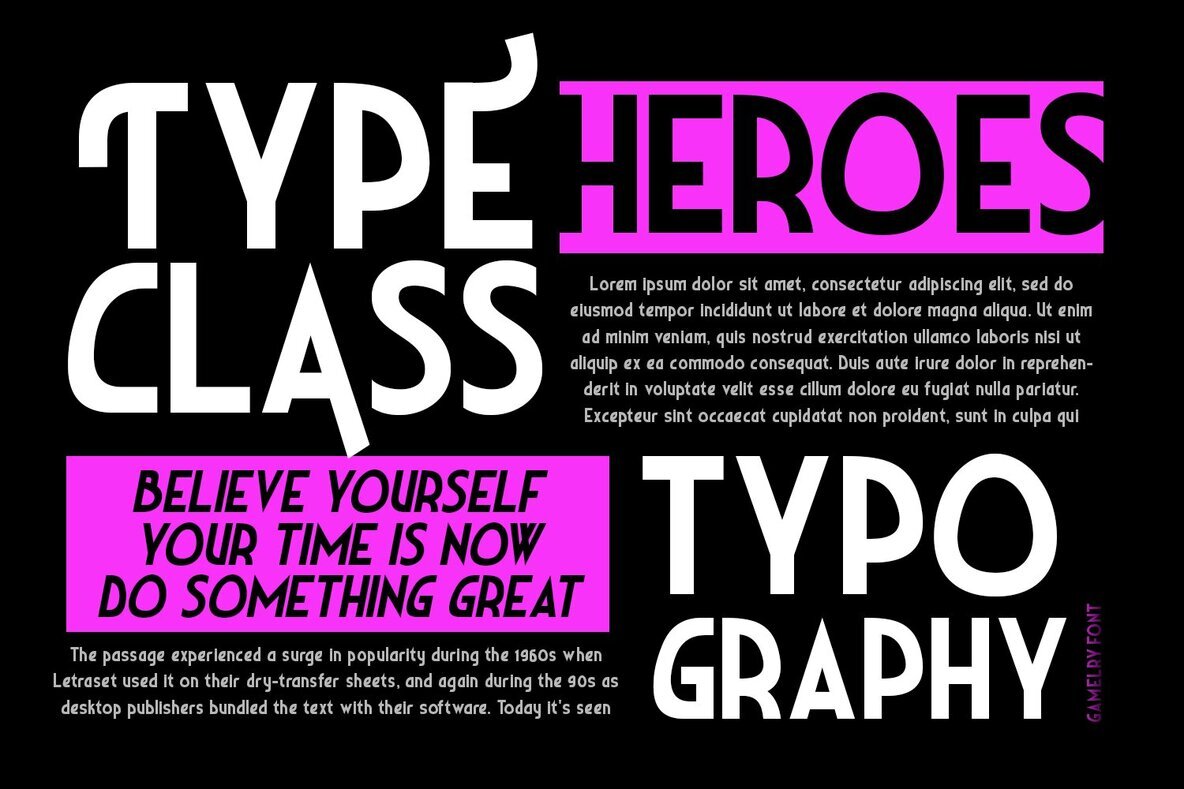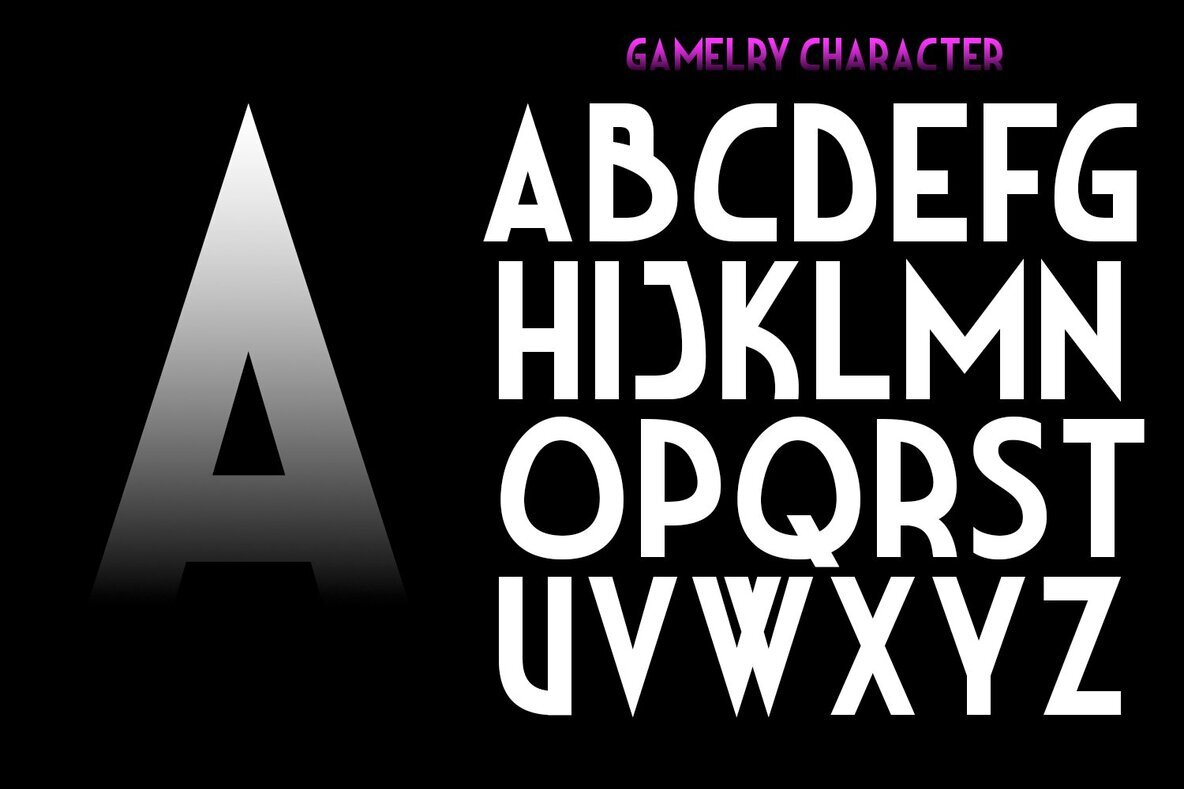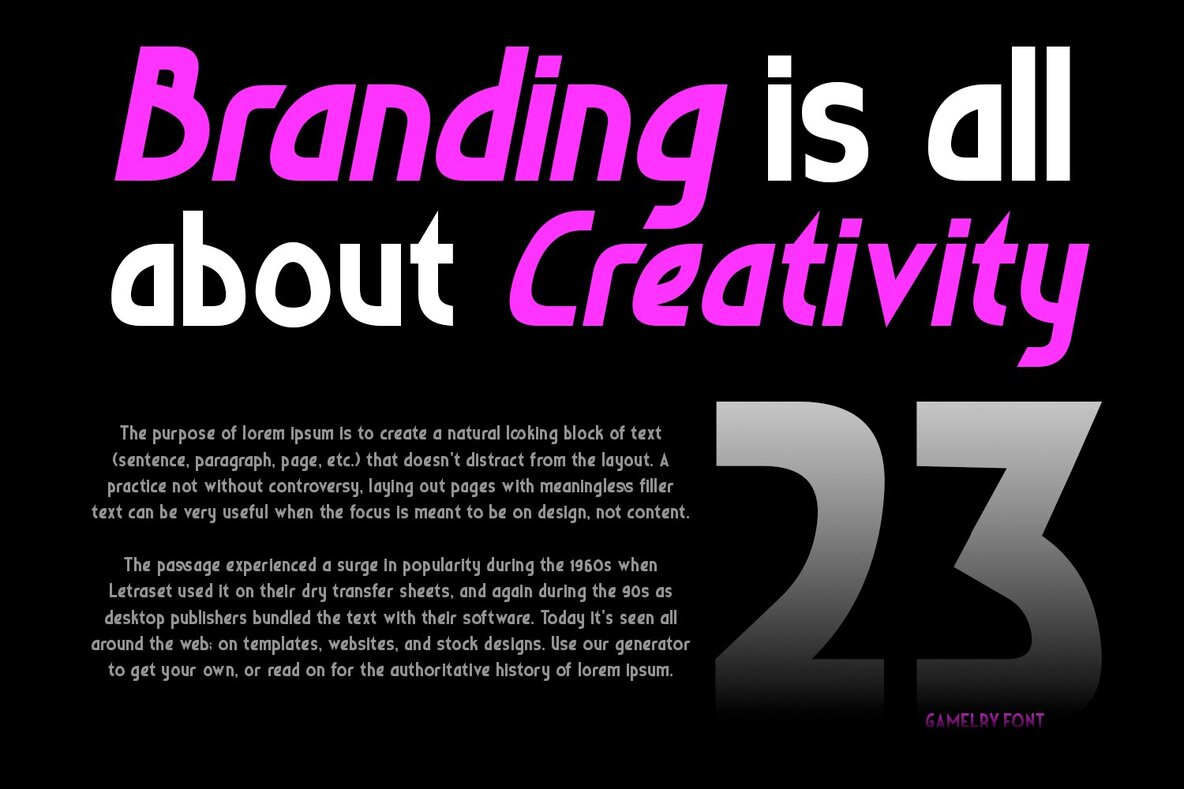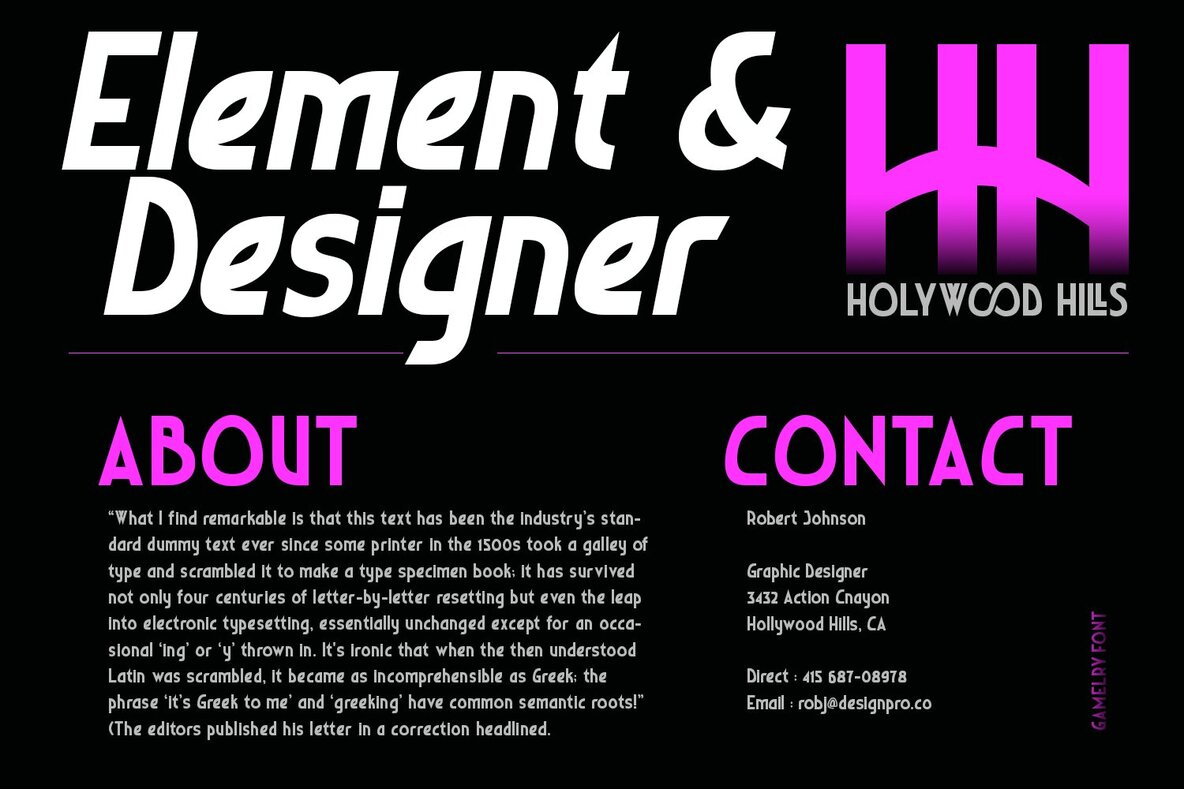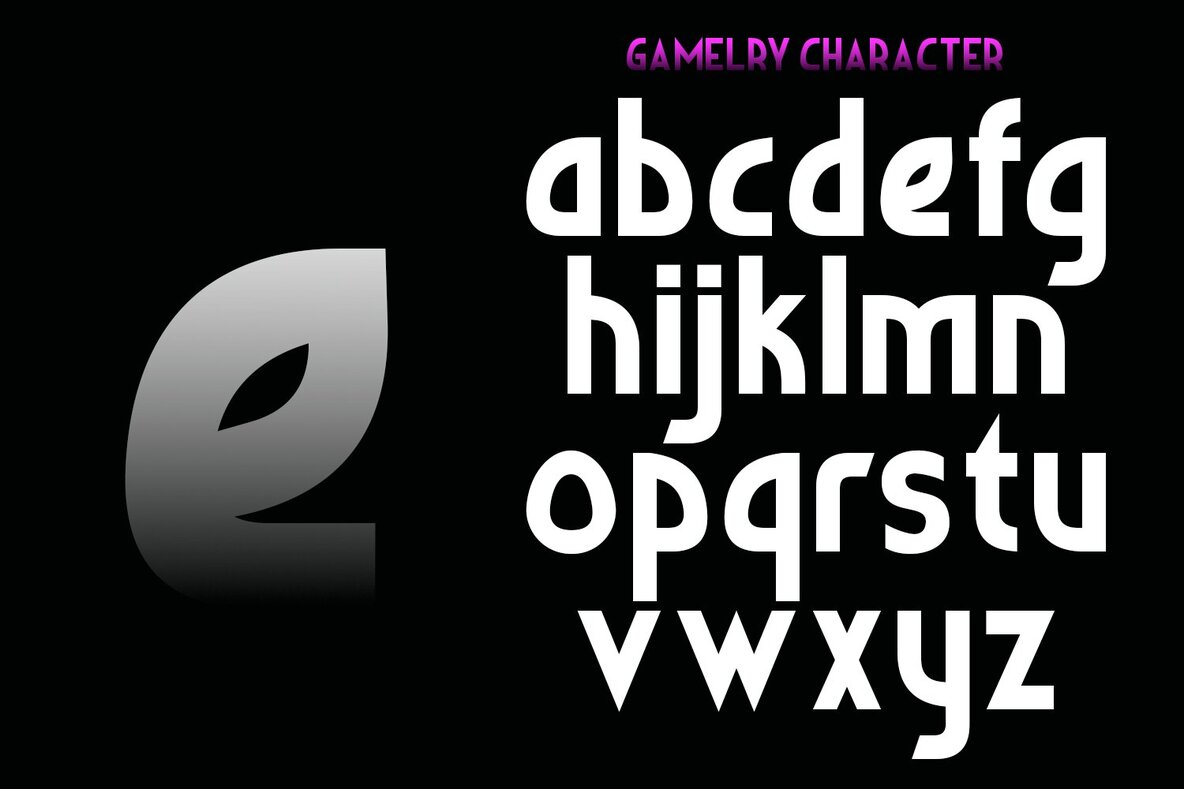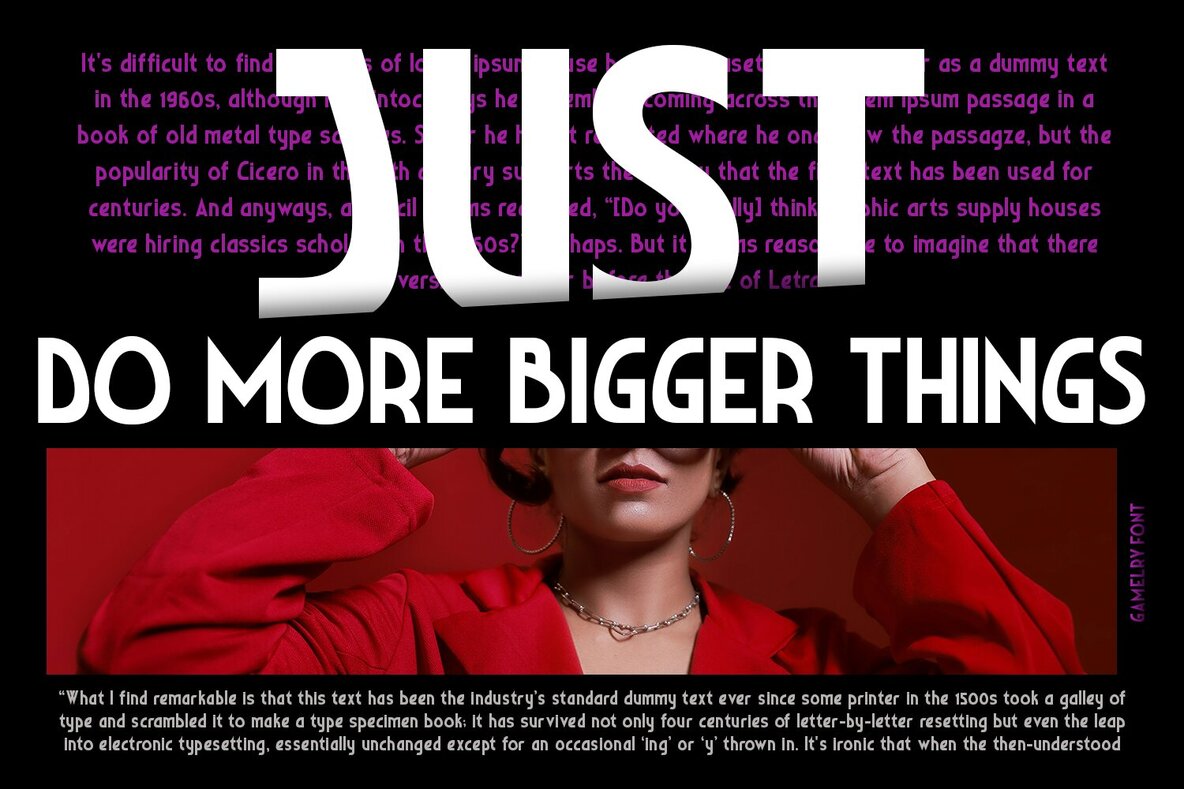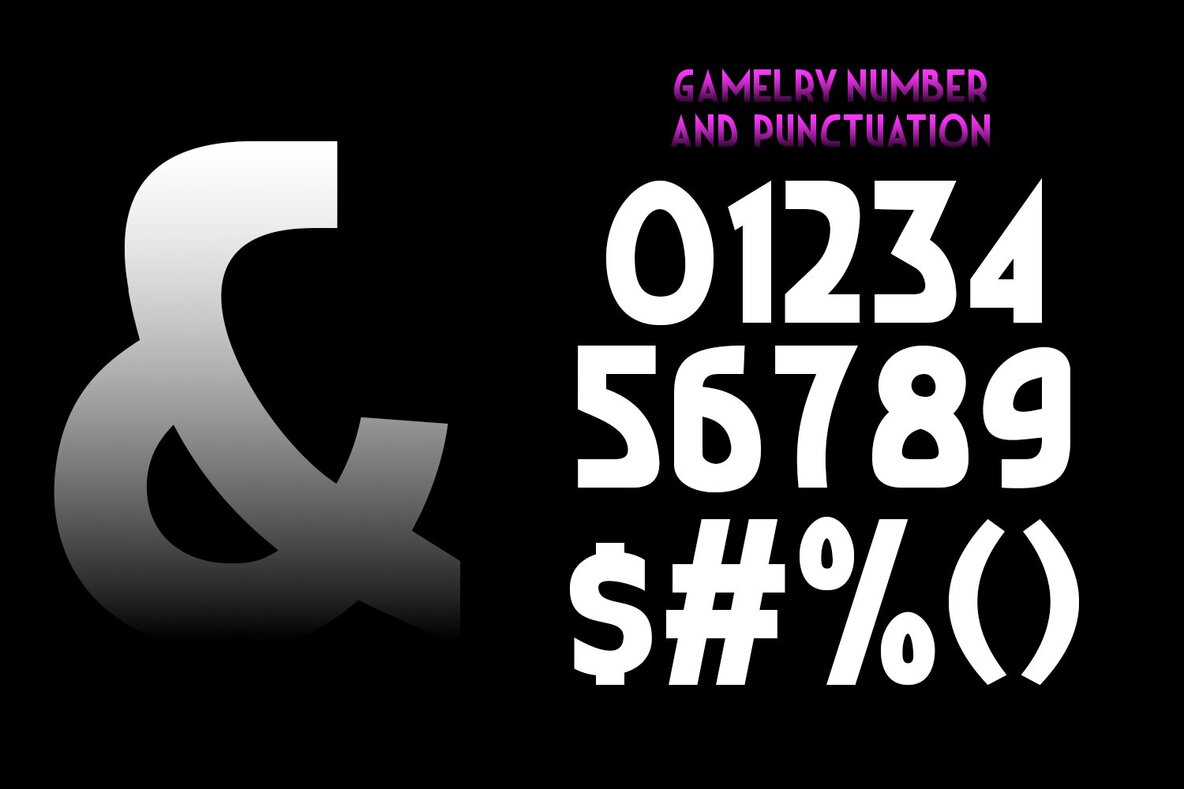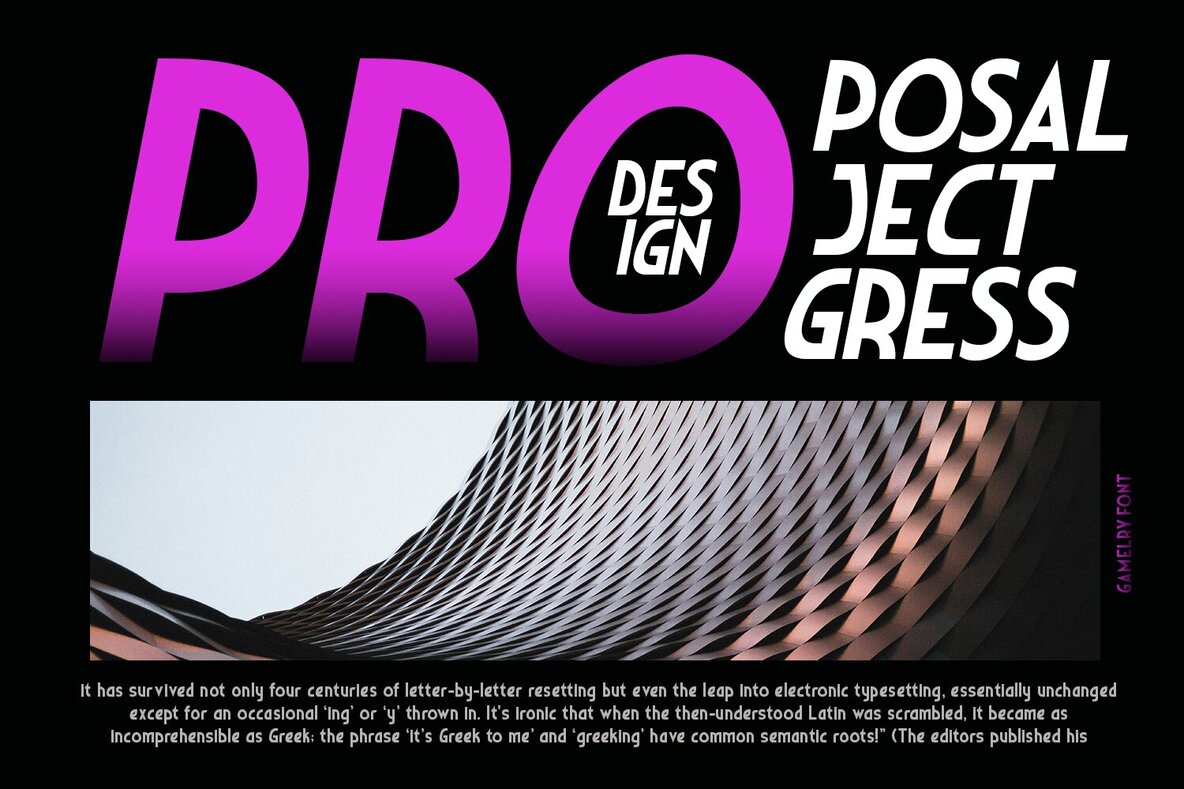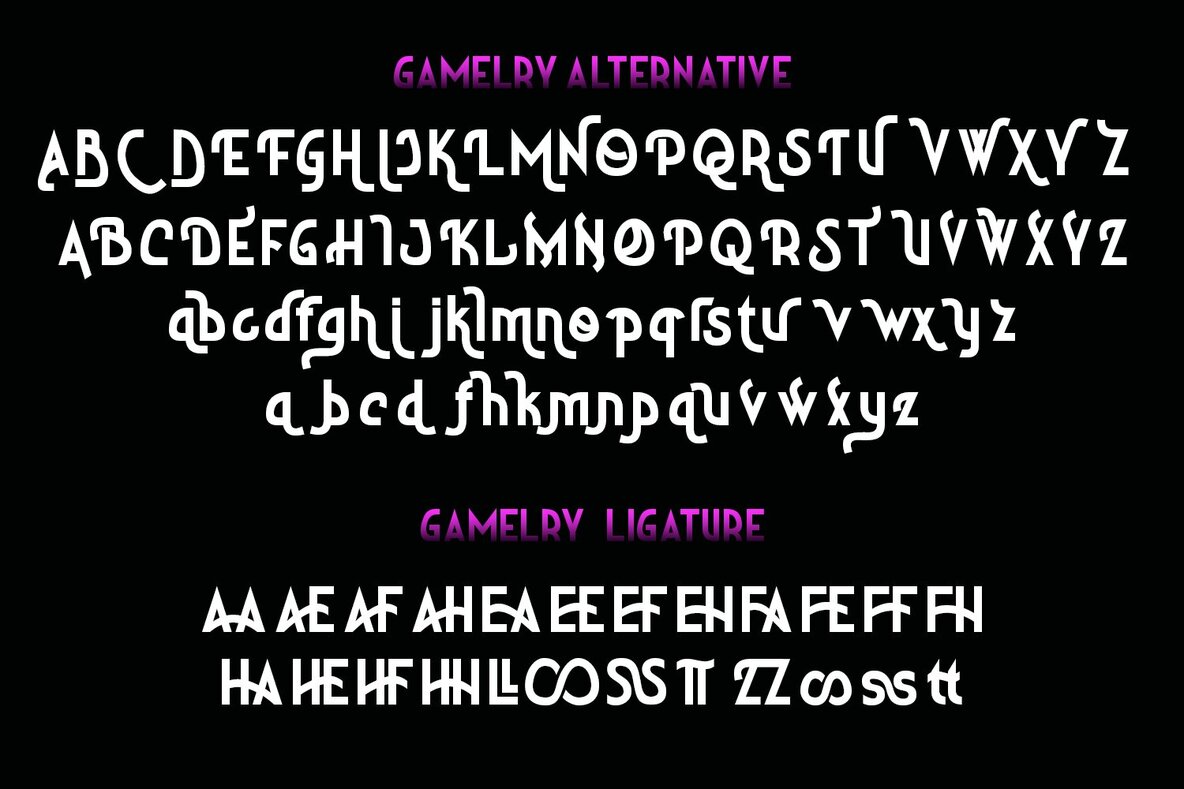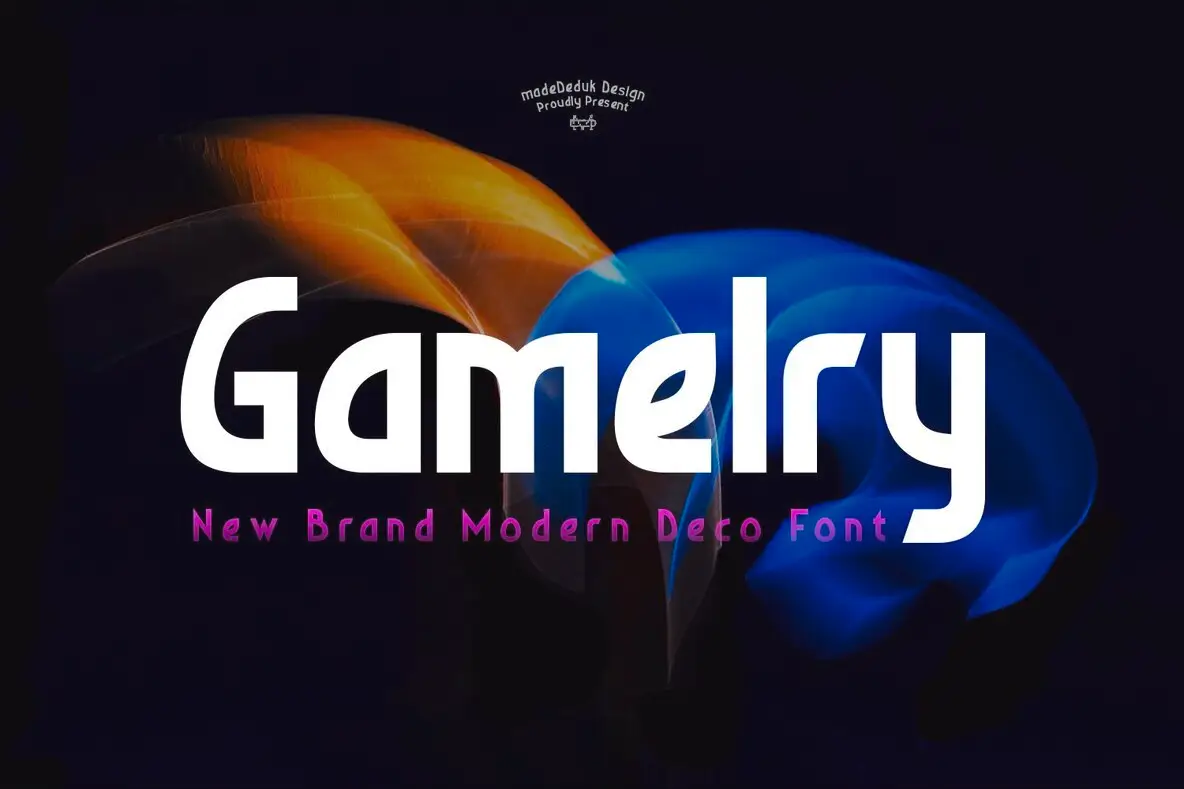
Gamelry Font
Gamelry captures the essence of modern deco style, blending sleek vintage aesthetics with contemporary sans techniques. This font offers a stylish yet classic feel, making it ideal for a variety of design projects. Whether you're working on branding, product packaging, or creating impactful headlines, Gamelry adds a sophisticated touch.
This versatile font is perfect for invitations, quotes, labels, posters, and logos, ensuring your designs stand out with elegance and clarity. Embrace the timeless appeal of Gamelry to enhance your creative endeavors and achieve a seamless blend of vintage charm and modern sophistication.